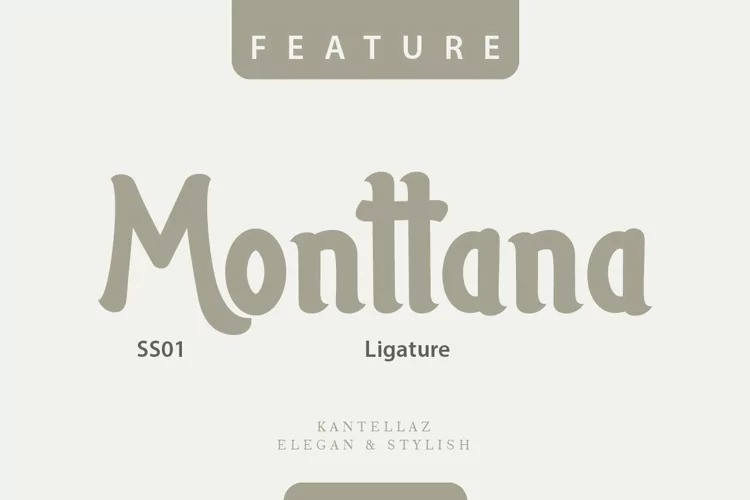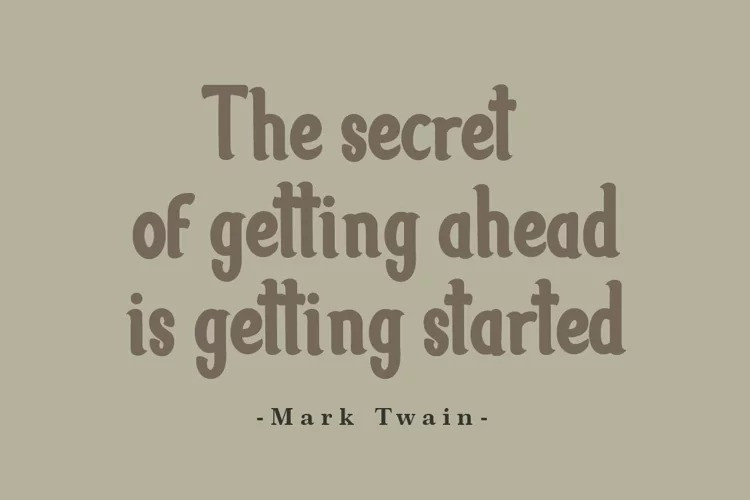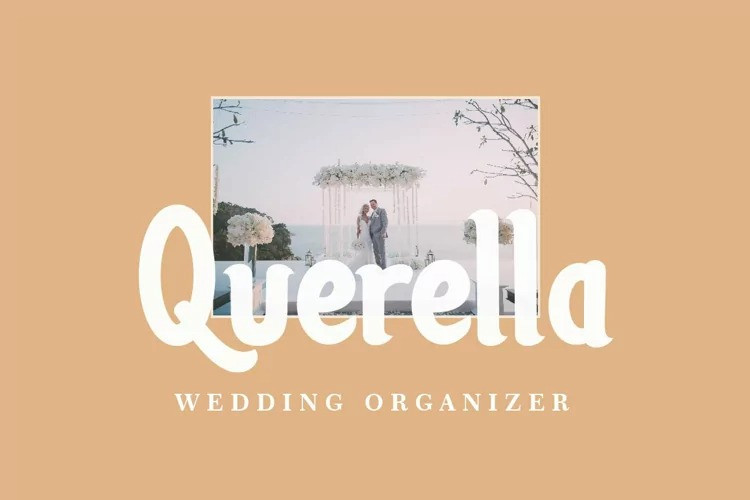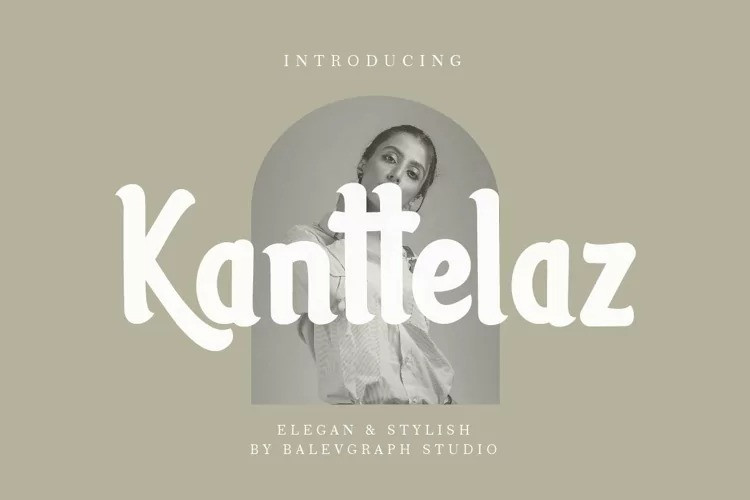
Kanttelaz Font
Kanttelaz Display Font
This Typeface designed by Balevgraph Studio is a handmade font with a strong personality, crafted to add an edge of personality and softness to your designs. Have fun with this cool font and explore its endless variations.